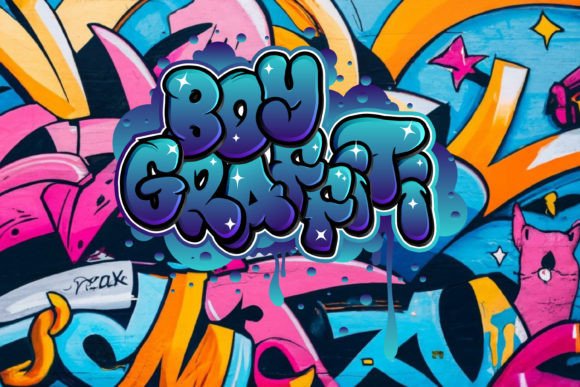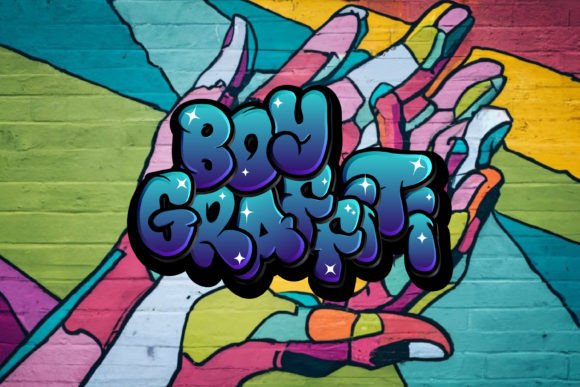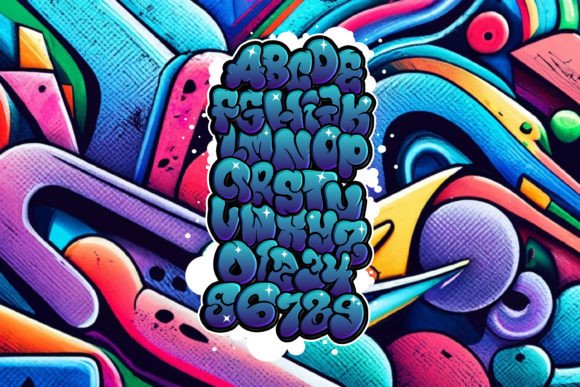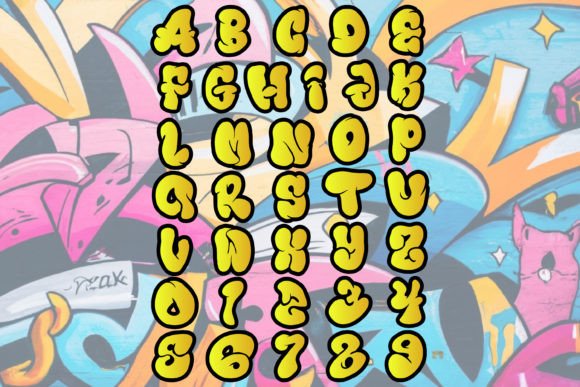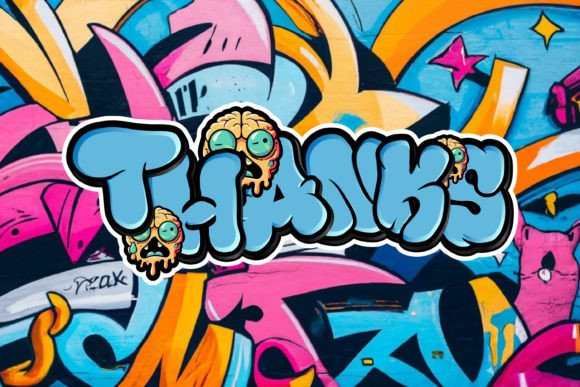
Welcome to the World of Boy Graffiti Font
I’ll never forget the time I was working on a street art-inspired project for a client, and I was struggling to find the perfect font to capture the edgy, urban vibe I was going for. I scoured the internet, tried out countless fonts, but nothing seemed quite right. That was until I stumbled upon the Boy Graffiti Font. It was like a breath of fresh air – bold, playful, and full of personality. In this article, we’ll dive into the world of graffiti fonts, explore the features of the Boy Graffiti Font, and show you how to make the most of it in your designs.
What is Boy Graffiti Font?
The Boy Graffiti Font is a stunning, urban-inspired font that’s perfect for adding a touch of edginess to your designs. With its bold lettering and intricate designs, this font is sure to make a statement. Whether you’re working on a street art project, a graphic design, or just want to add some personality to your craft projects, the Boy Graffiti Font is an excellent choice.
Honest Review
So, what do I love about the Boy Graffiti Font? Here are a few things that make it stand out:
- ✨ Unique and eye-catching design: The Boy Graffiti Font has a one-of-a-kind look that’s sure to grab attention.
- ✅ Highly versatile: This font can be used for a wide range of projects, from street art to graphic design.
- 💯 Easy to read: Despite its bold and edgy design, the Boy Graffiti Font is surprisingly easy to read.
Of course, no font is perfect, and there are a few small quirks to be aware of:
- 🤔 Limited use in formal designs: The Boy Graffiti Font is best suited for informal, creative projects. It may not be the best choice for formal designs or professional documents.
- ⚠️ May require adjustments for longer texts: While the font is easy to read, it can be a bit overwhelming for longer texts. You may need to adjust the size, spacing, or layout to make it work.
The Boy Graffiti Font was inspired by the urban street art scene. Its creator, a young designer named Alex, was fascinated by the bold, colorful graffiti that covered the walls of his city. He wanted to capture the energy and personality of street art in a font that could be used by designers and artists around the world.
| Font Name | Boy Graffiti Font |
| Author | Boy William |
| What is the best way to use the Boy Graffiti Font? | The Boy Graffiti Font is best used for informal, creative projects such as street art, graphic design, and craft projects. |
| Is the Boy Graffiti Font easy to read? | Yes, despite its bold and edgy design, the Boy Graffiti Font is surprisingly easy to read. |